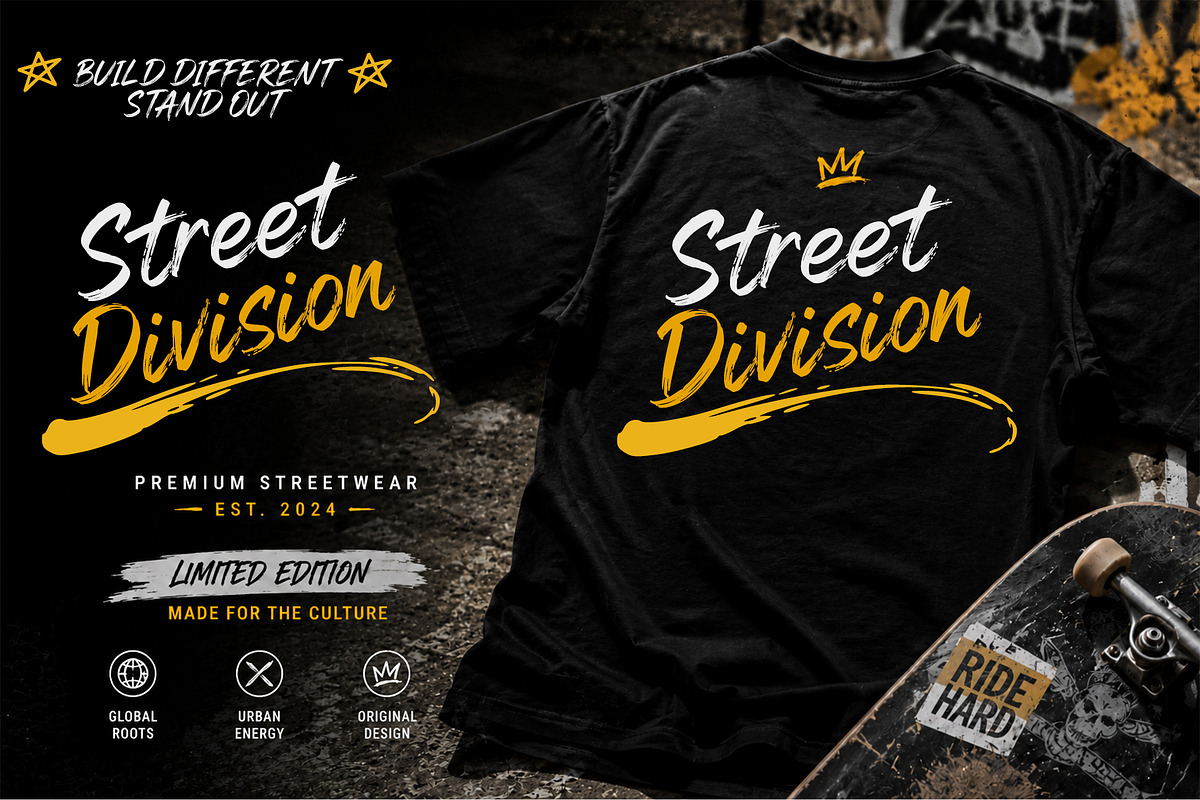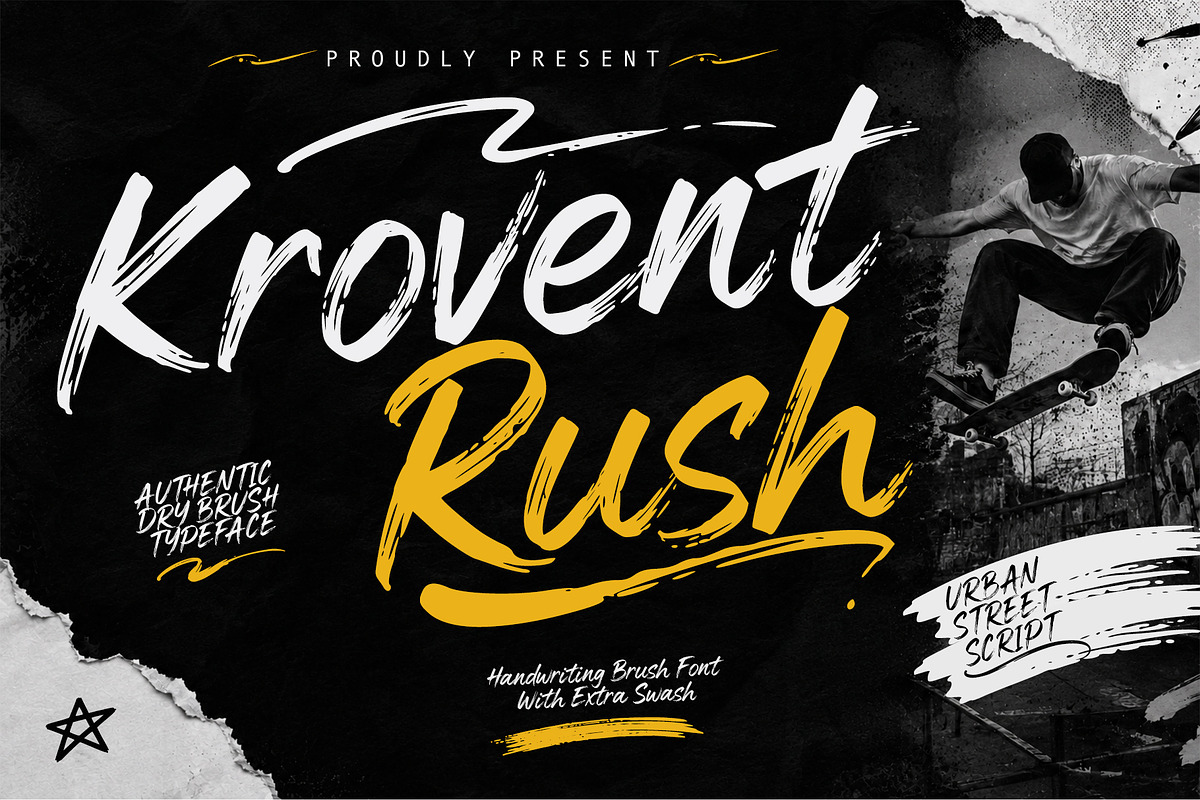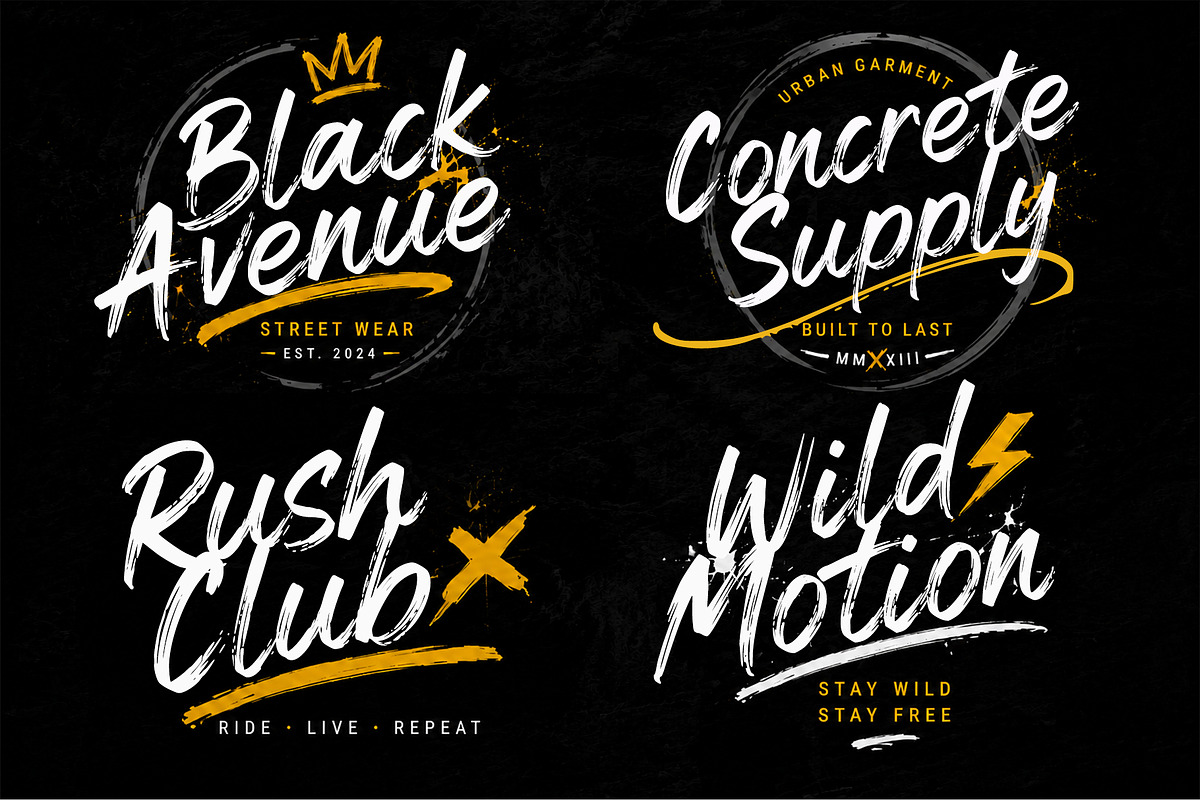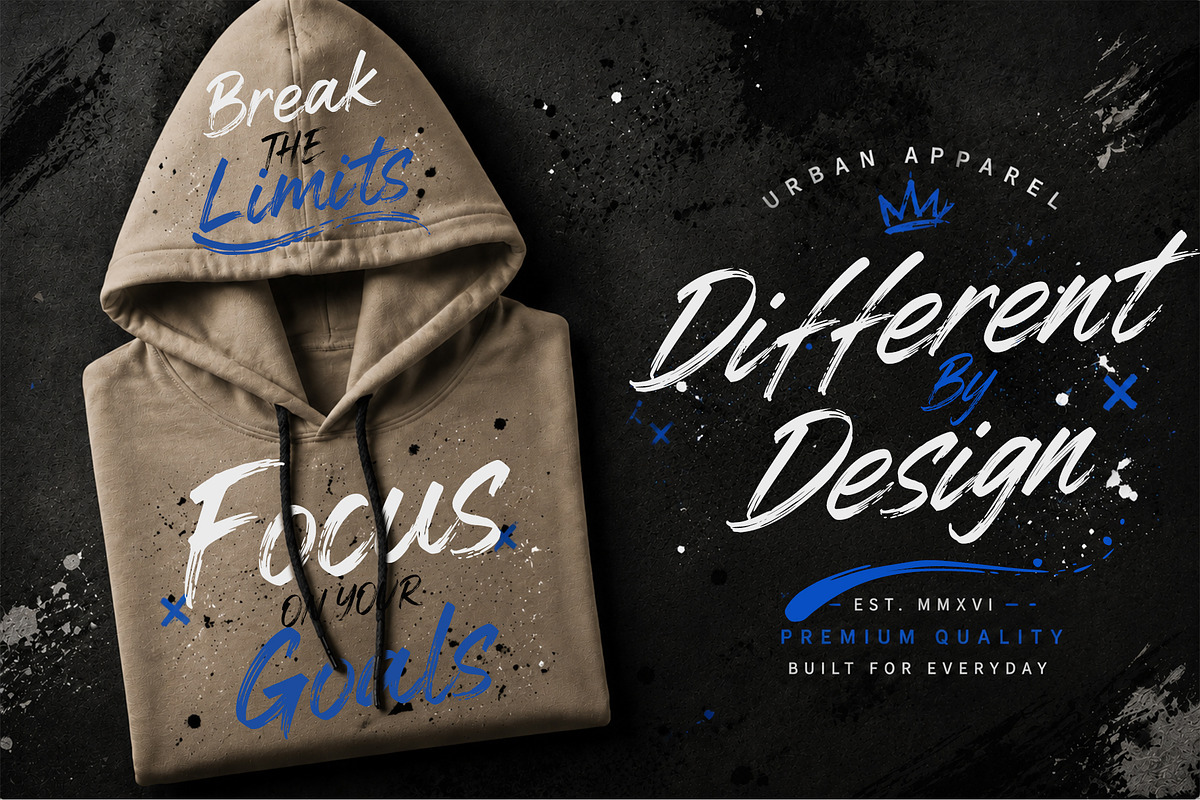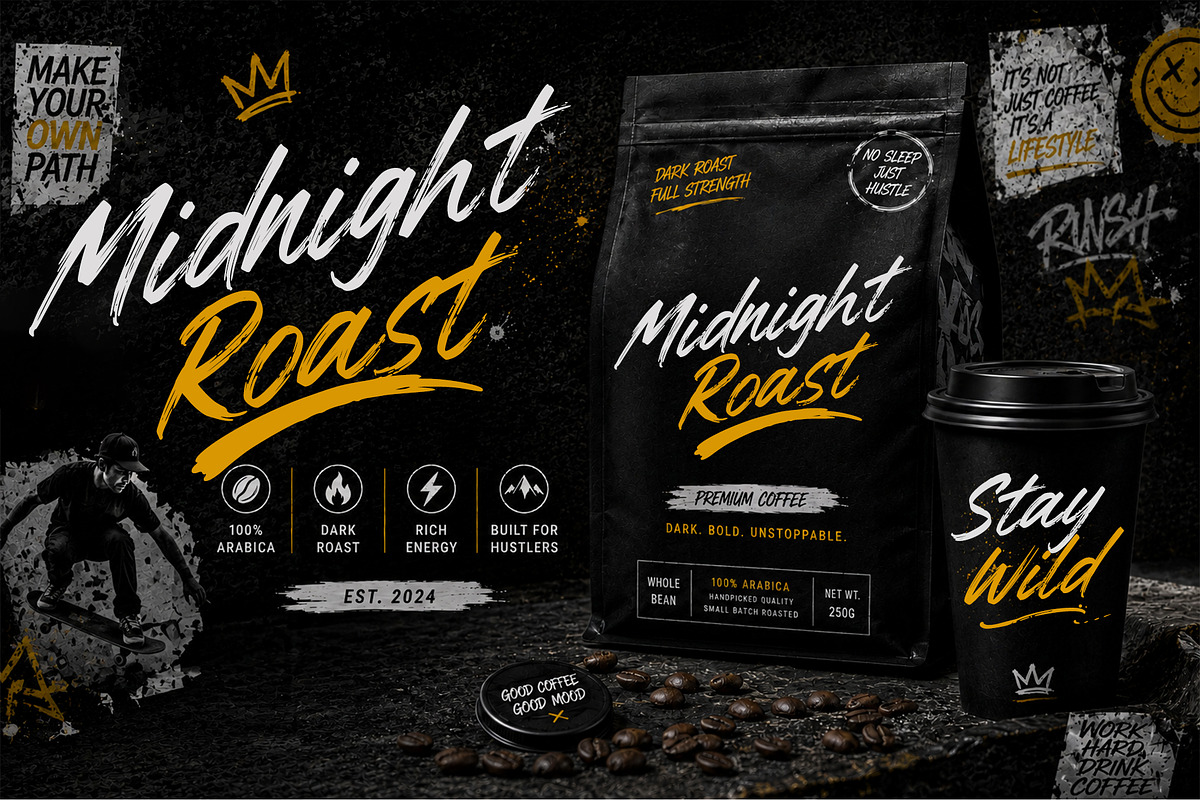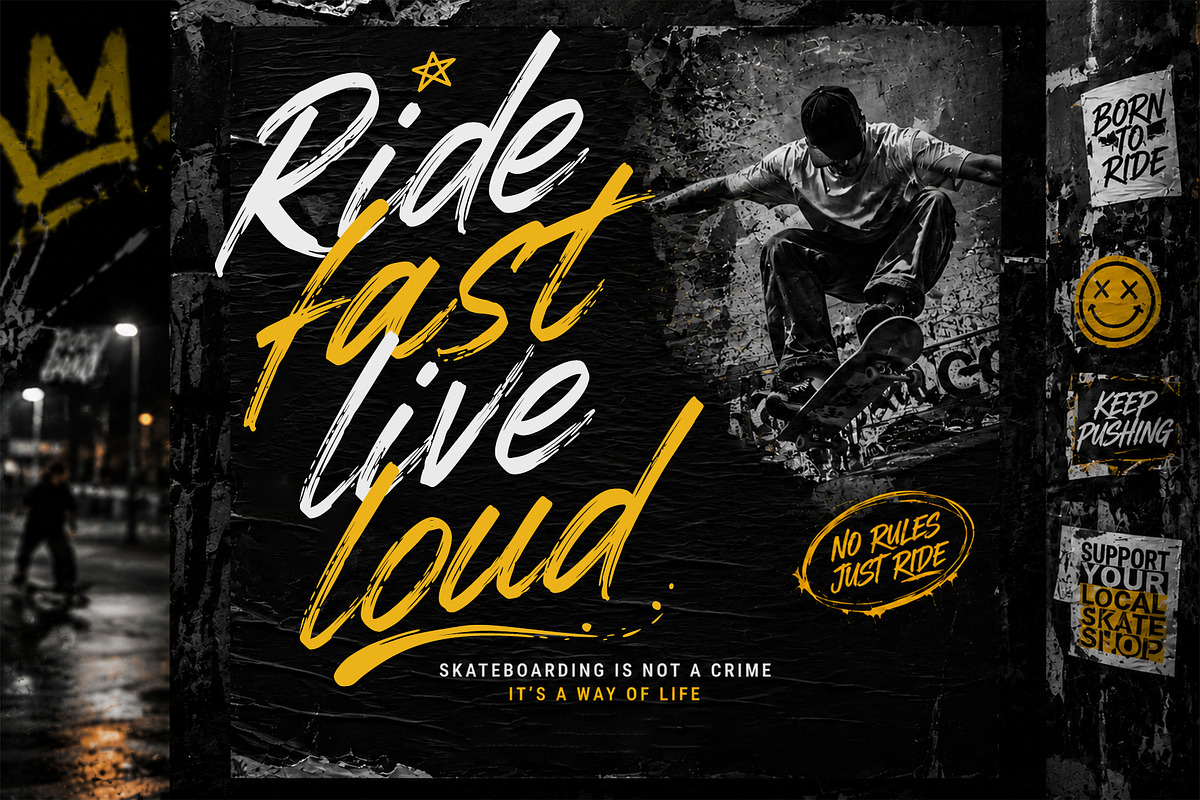
KroventRush
Krovent Rush is a bold urban brush font crafted to deliver raw energy, movement, and authentic hand-painted character. Featuring expressive dry brush strokes and natural texture details, this typeface brings a powerful visual impact to any creative project.
Designed with a modern street-inspired aesthetic, Krovent Rush is perfect for logos, branding, apparel designs, posters, packaging, album covers, social media graphics, advertising campaigns, and other standout display purposes. Its dynamic letterforms and bonus swashes create a strong sense of motion, making every design feel vibrant and attention-grabbing.